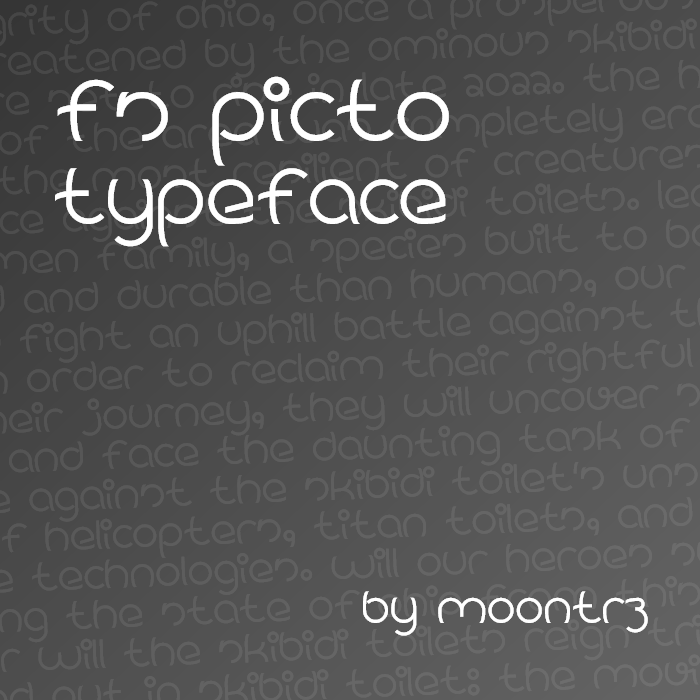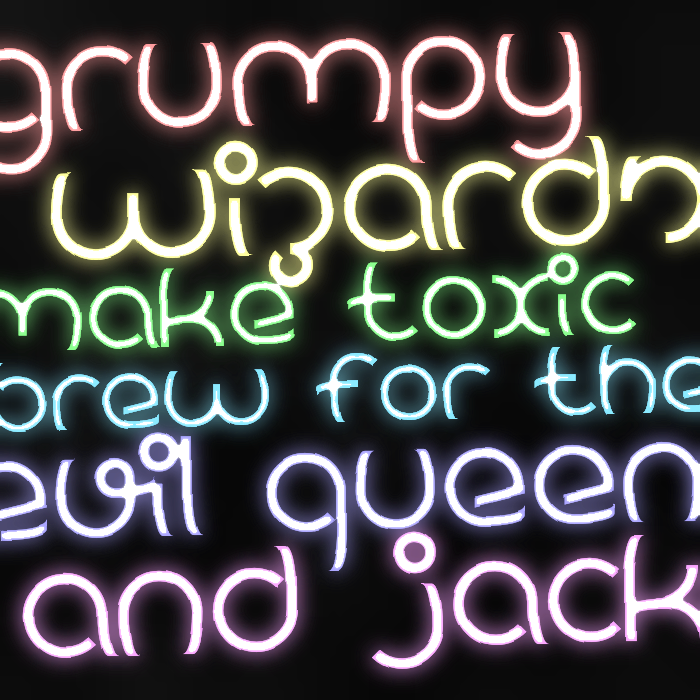
• a little something I had in my head for quite a while already, finally decided to try and make it in Fontstruct.
No kerning done right now, but maybe some time later I'll do it. though even without the kerning it looks nice in my opinion.
also may redo some glyphs in the future.
UPDATE: cyrillic done
Bauhaus handwriting!! 10/10
this looks really, really cool.
Well done, especially with FontStruct limitations.
Very nice!
This is really cool! And as thalamic said, especially considering the constraints of FontStruct.
How many fontstructors with experience have gathered here (the ideal time for the competition, but apparently not this year). I agree with everyone, this is a good font, my Lasso reminded me (if you suddenly want to try making Cyrillic, you can look at it). It's an unusual solution of s, but I'm not a native speaker so I don't know how well it reads.
I hope you will add kerning over time.
@Sychoff I'll look into adding cyrillic.
just added cyrillic, and it was a lot harder than doing latin because of letters like я and ъ.
If anyone has suggestions or improvements, go ahead, cuz I think cyrillic really needs some improvements right now..
There is such a friendly feel to this, modular with a playful twist.
Why is it lowercase?
L like it, but same with @Stephen23 . Why is it lowercase? 9/10